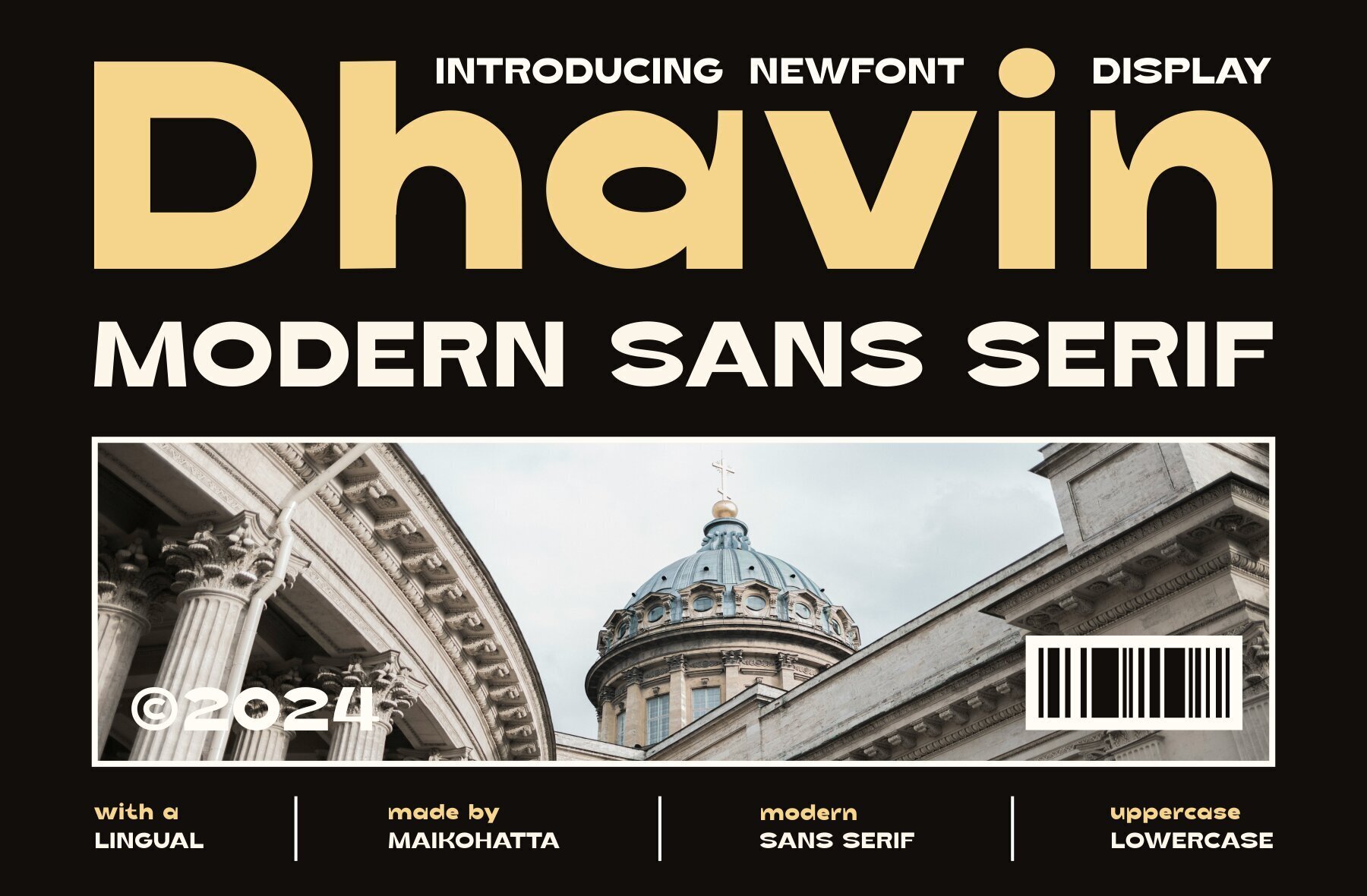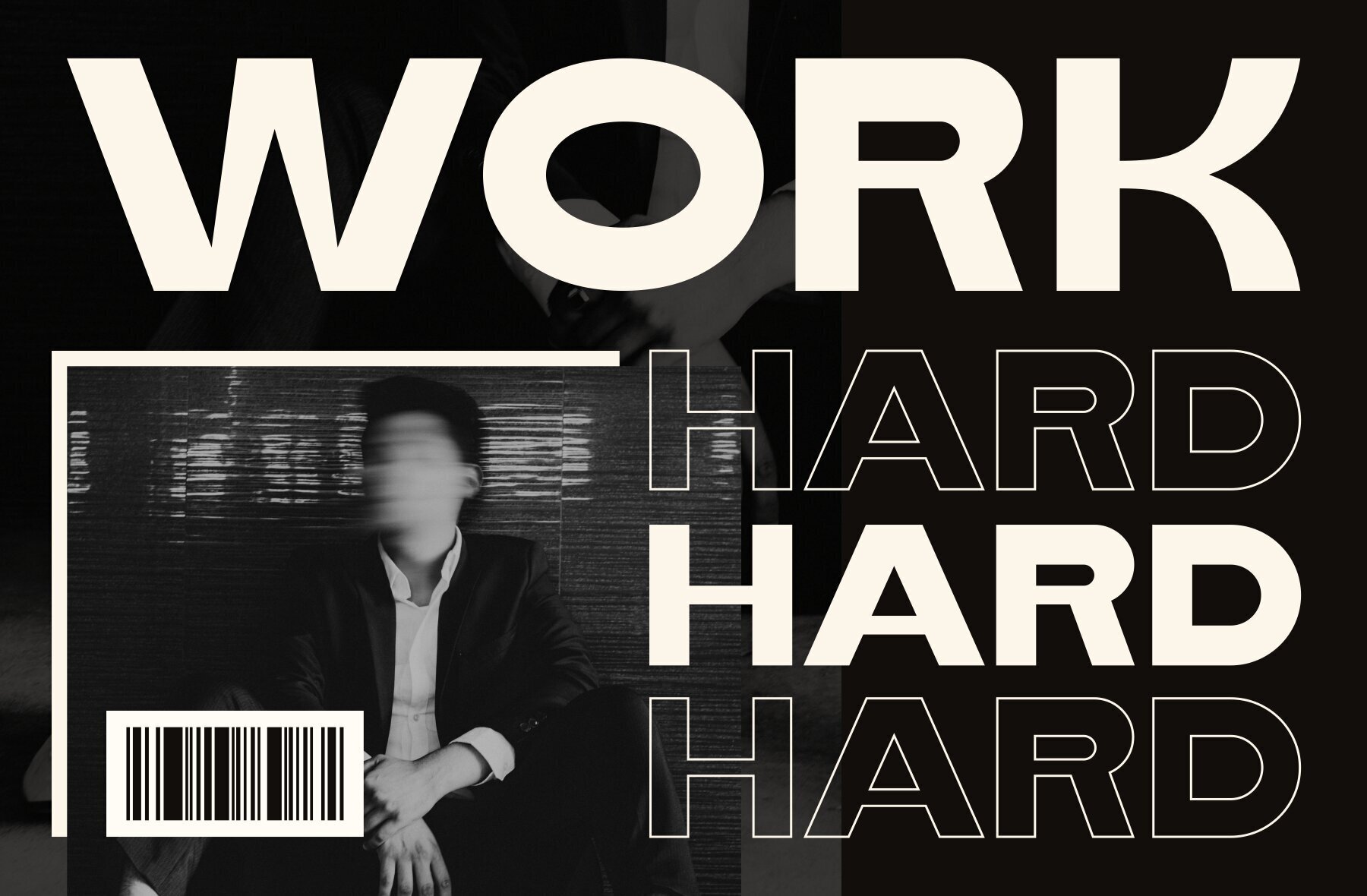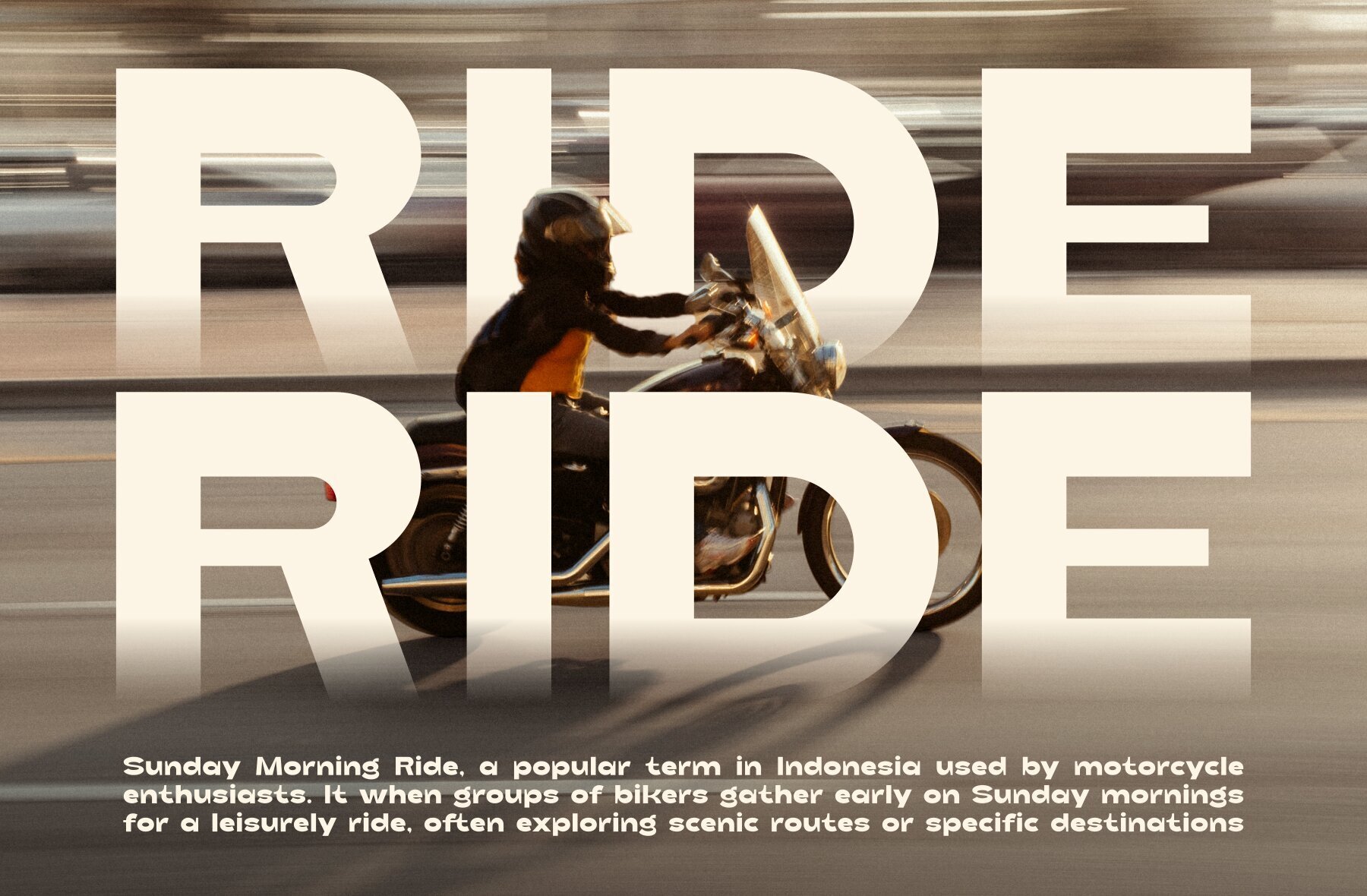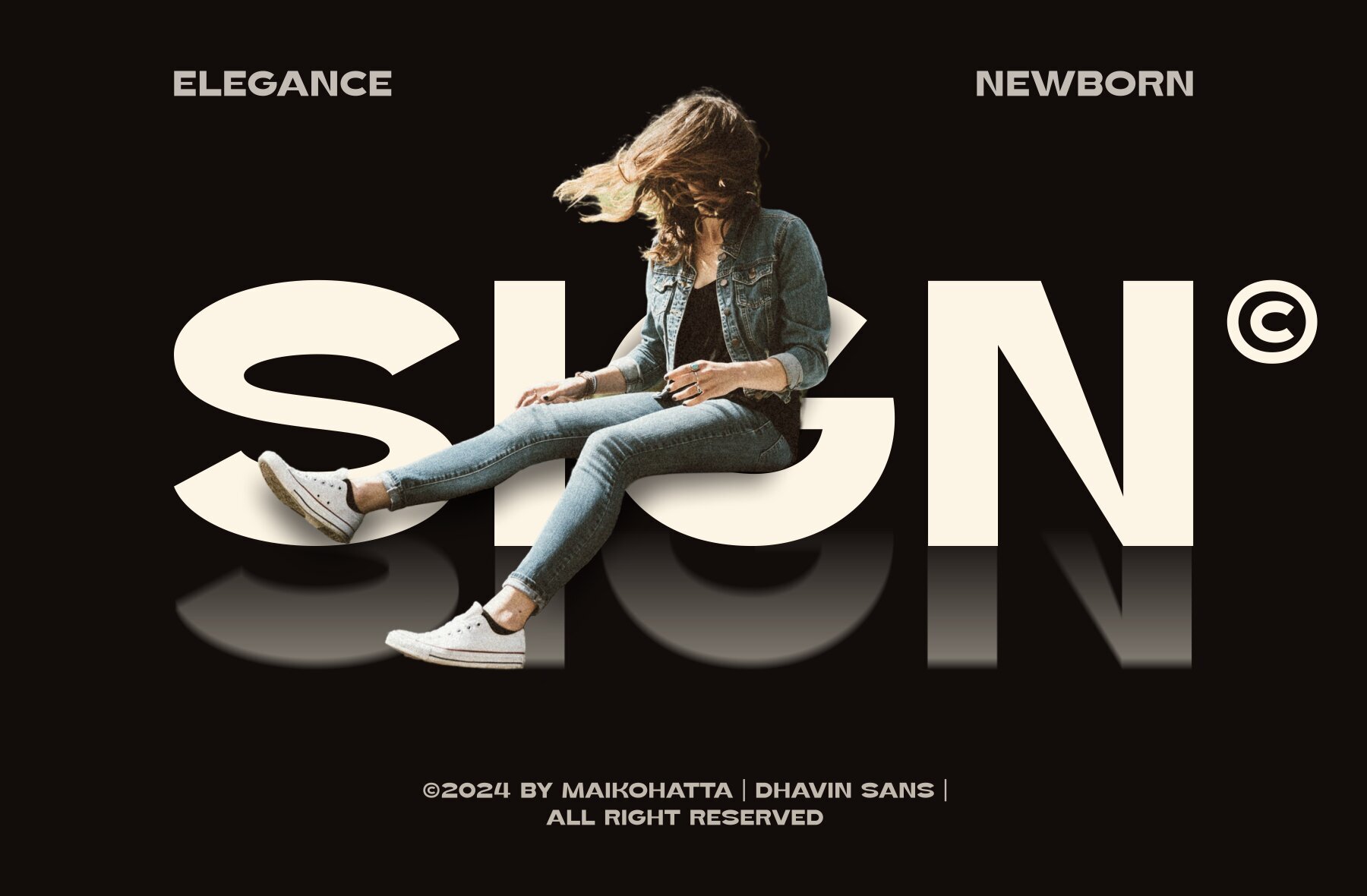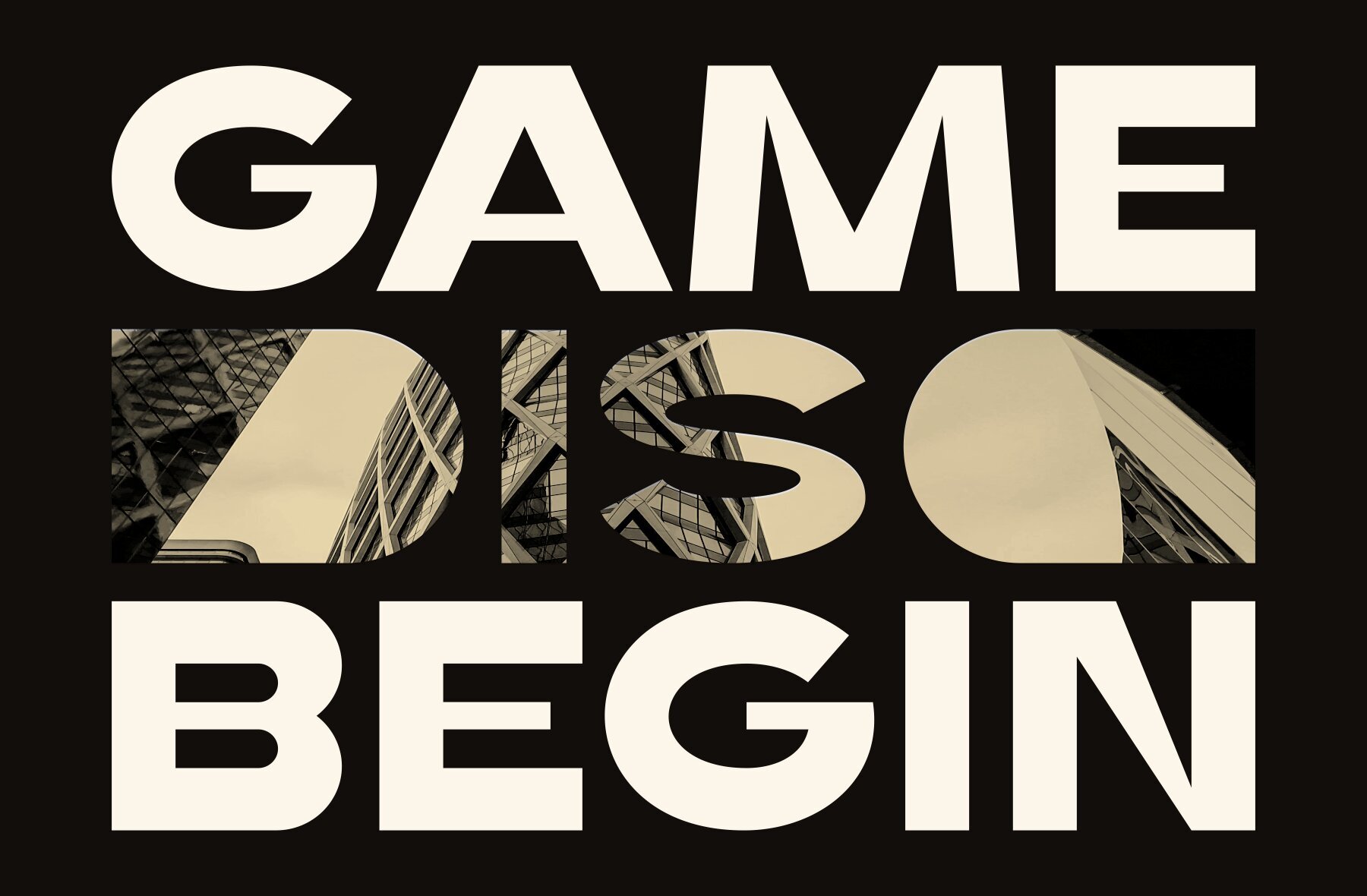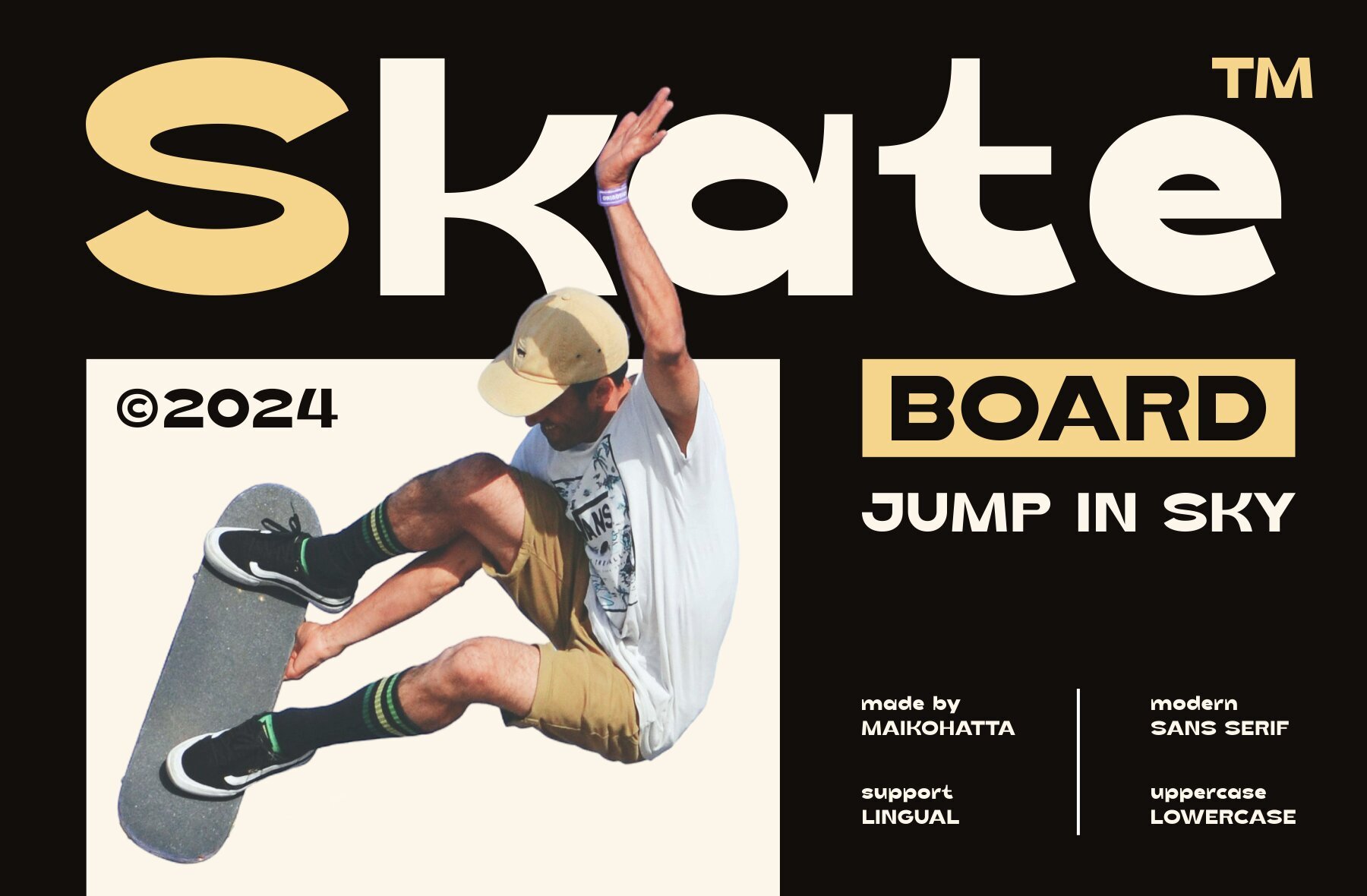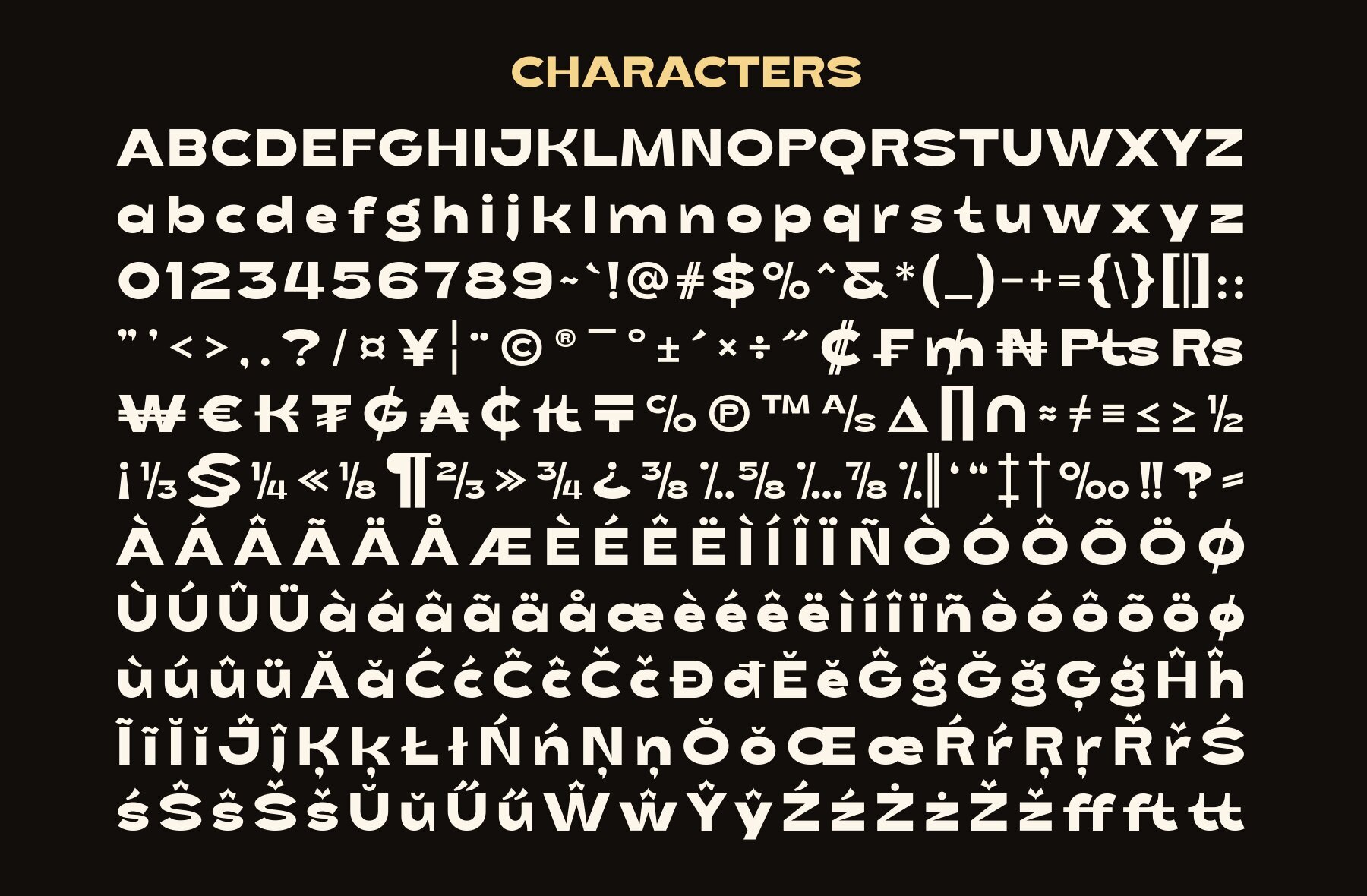
Dhavin Font
Dhavin
Dhavin is a modern sans serif font that offers exceptional versatility for a range of design projects. With its clean and professional aesthetic, this font brings a contemporary touch to any visual work, enhancing both readability and appeal. Perfect for graphic design and modern typography, Dhavin is adept at providing a sophisticated yet straightforward look.
Whether you're working on branding, web design, or print media, this font stands out with its simplicity and visual charm. Its consistent structure makes it ideal for projects requiring a polished, sleek appearance. Use Dhavin to elevate your design work with a touch of modern elegance, ensuring that your text is both compelling and easy to read.